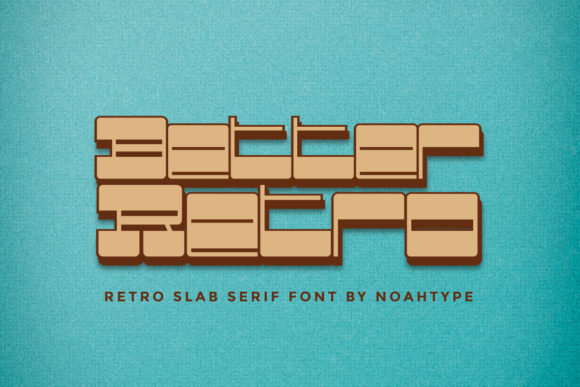
Get ready to be swept away by the captivating charm of Better Retro Font - the ultimate font family that oozes nostalgia with a modern twist. This display font is a timeless masterpiece, a testament to the enduring power of retro aesthetics. With its squared letters and clean lines, Better Retro Font exudes a sense of sophistication and elegance.
Step into a world where vintage meets contemporary, where the past collides with the present. Let Better Retro Font be your creative compass, guiding you through a journey of imagination and expression. Dive into a myriad of possibilities, from eye-catching logos that evoke a sense of history to t-shirt designs that speak to your adventurous spirit. Unleash your creativity and craft unique branding projects that stand the test of time.
With Better Retro Font, you have the power to transform your creative visions into tangible realities. Whether you're a seasoned designer or a budding entrepreneur, this font family will empower you to create designs that resonate with your audience. Its versatility knows no bounds, making it the perfect choice for a diverse range of projects.
So, embrace the allure of the past with Better Retro Font. Let your designs speak volumes, capturing the hearts of those who appreciate the beauty of timeless aesthetics. Join the ranks of creative visionaries who have harnessed the power of this extraordinary font family to create masterpieces that inspire and captivate.